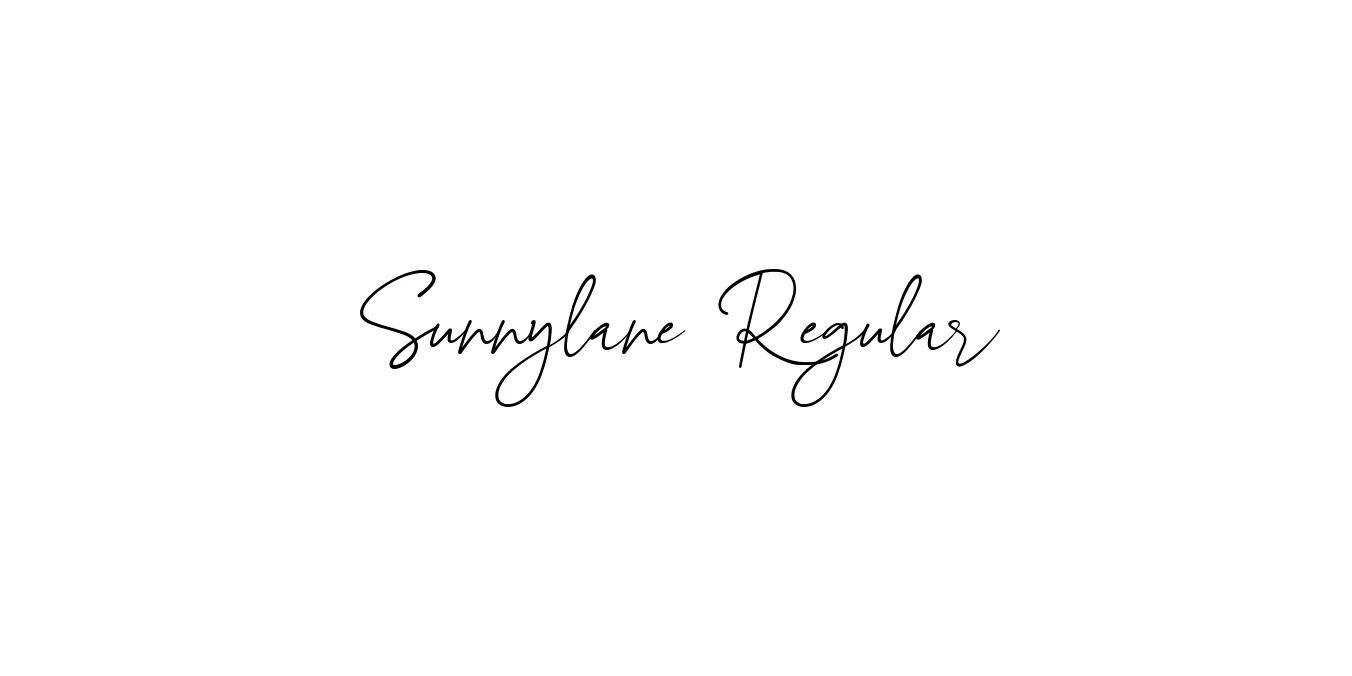
Sunnylane Regular
Sunnylane Regular is an elegant and fluid handwritten font crafted by Letterena Studios. It features smooth, flowing strokes that replicate the natural rhythm of calligraphy, providing a sense of warmth and authenticity to any digital or print design. The character set is designed with a balanced weight, ensuring that the typeface remains legible while still offering a high degree of artistic expression and personality.
This typeface has gained popularity among modern designers for its versatility in lifestyle and fashion branding. Sunnylane Regular is frequently utilized to establish a friendly and approachable brand identity, making it a go-to choice for personal signatures, feminine logos, and social media content. Its organic structure allows it to adapt beautifully to various contexts, from sophisticated wedding invitations to casual product packaging.
Sunnylane Regular Best Uses
Creates a romantic and personalized feel for stationery.
Perfect for creating relatable and engaging Instagram quotes.
Ideal for lifestyle, beauty, and fashion brands seeking a signature look.
Adds an artisanal and handcrafted touch to boutique products.
Excellent for digital signatures and personal letterheads.